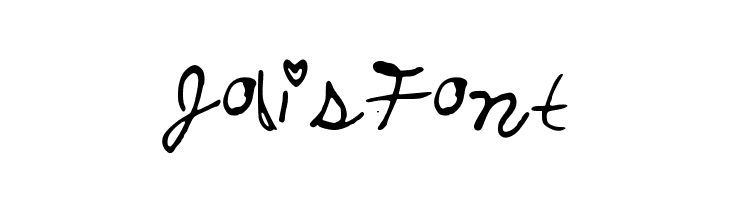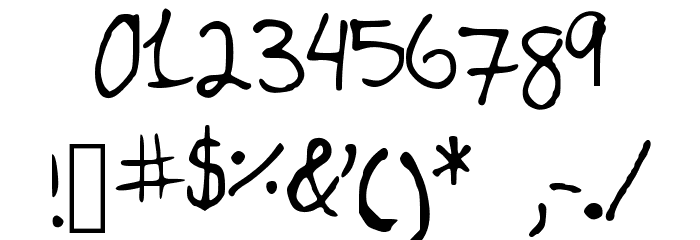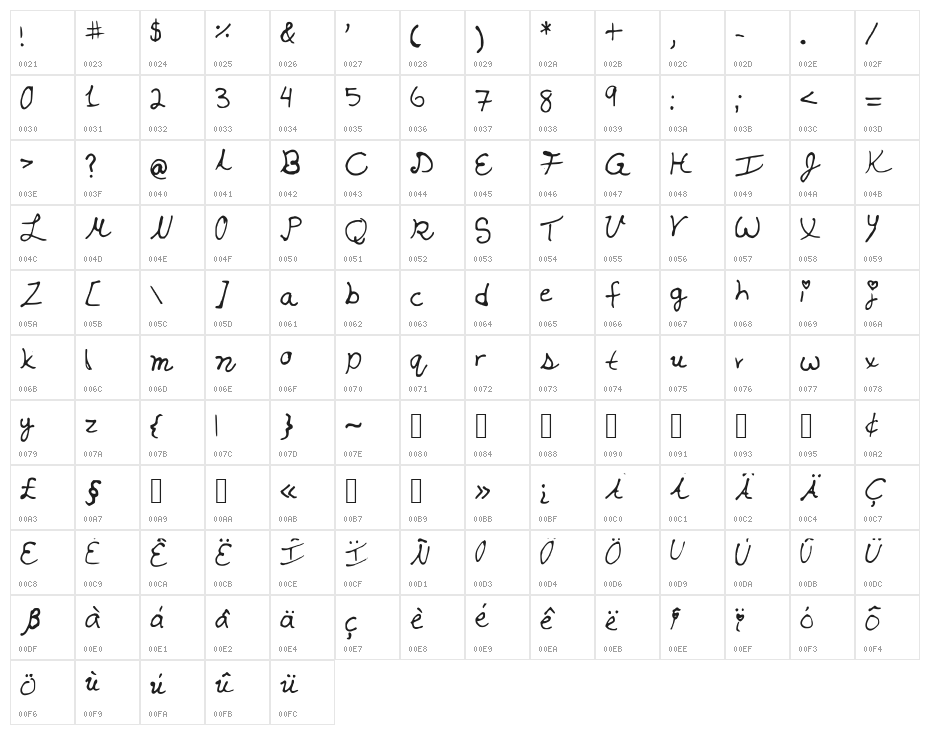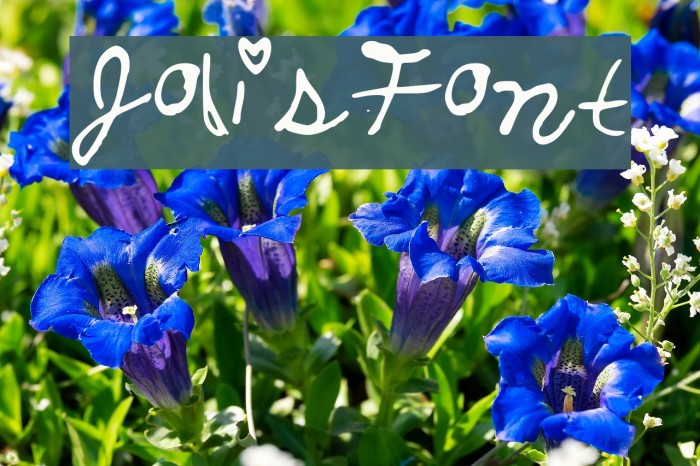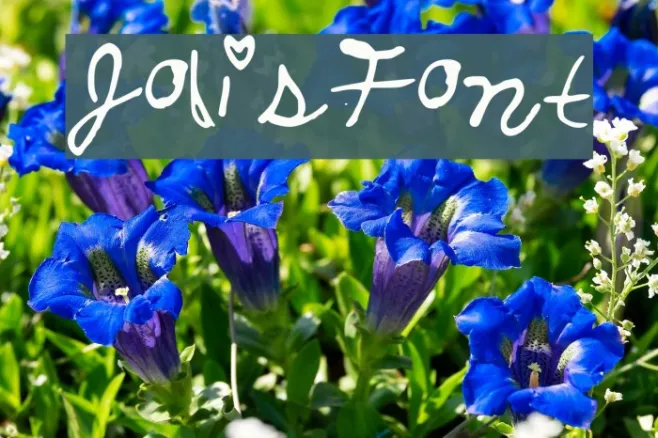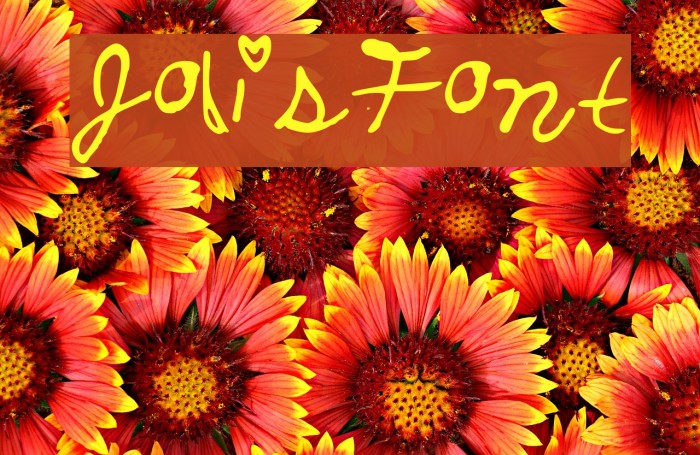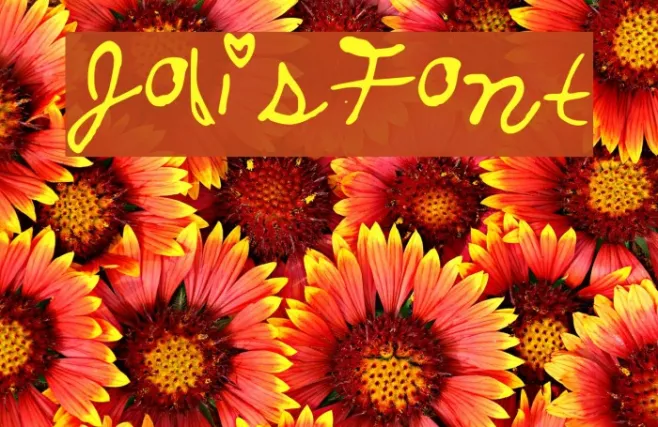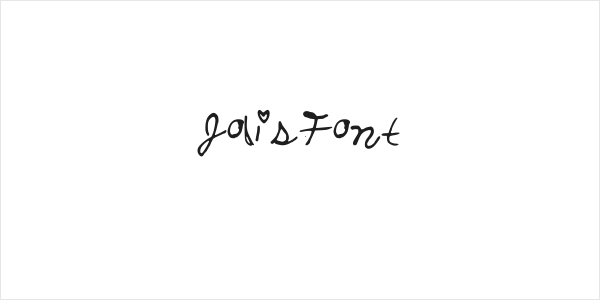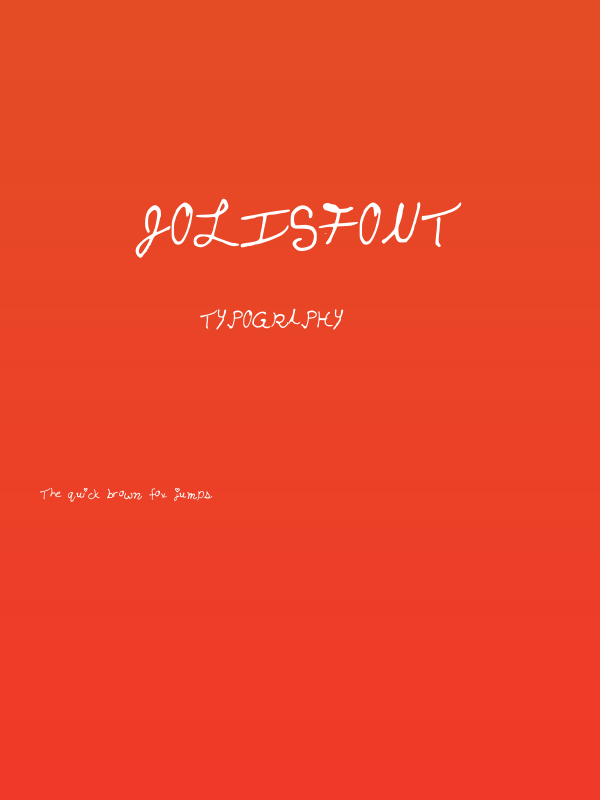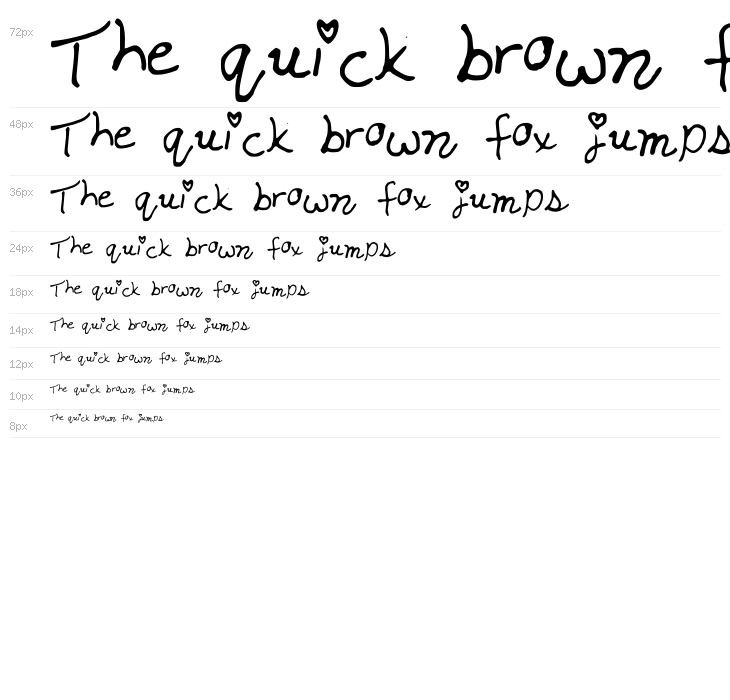
JolisFont Font
JolisFont Description
This font exhibits a playful and whimsical handwritten style, characterized by its fluid and dynamic strokes. The uppercase letters are slightly slanted, adding a casual and informal touch. The lowercase letters feature unique embellishments, such as the heart-shaped dots on the 'i' and 'j', enhancing its playful nature. The numerals are consistent with the overall style, maintaining a cohesive look. Special characters are creatively designed, complementing the font's lively appearance. This font is ideal for projects that require a personal and friendly tone.
| Use Case | Headlines, Logos, Informal text |
| Proposed Projects | Greeting cards, children's books, playful branding, personal invitations, and social media graphics. |